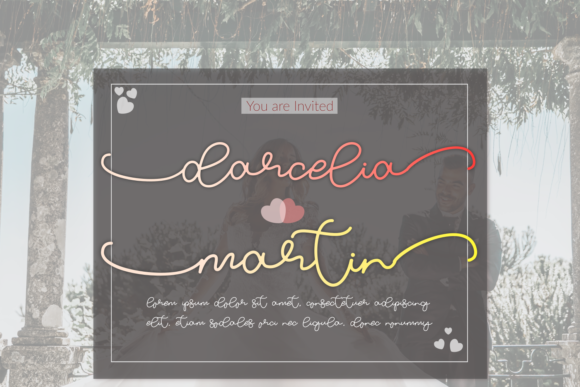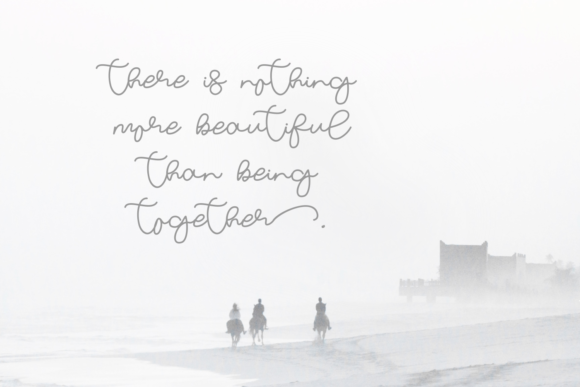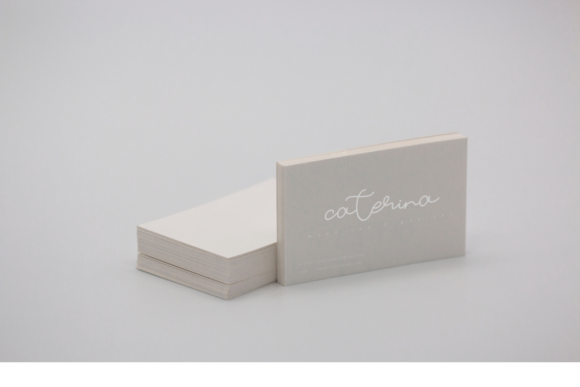
Introduction to Sentausa Font
Sentausa is a stylish and delicate font.
It has a clean, thin and smooth vibe and it will be a hit for any design that you want to add it to This font is PUA encoded which means you can access all of the glyphs and swashes with ease.